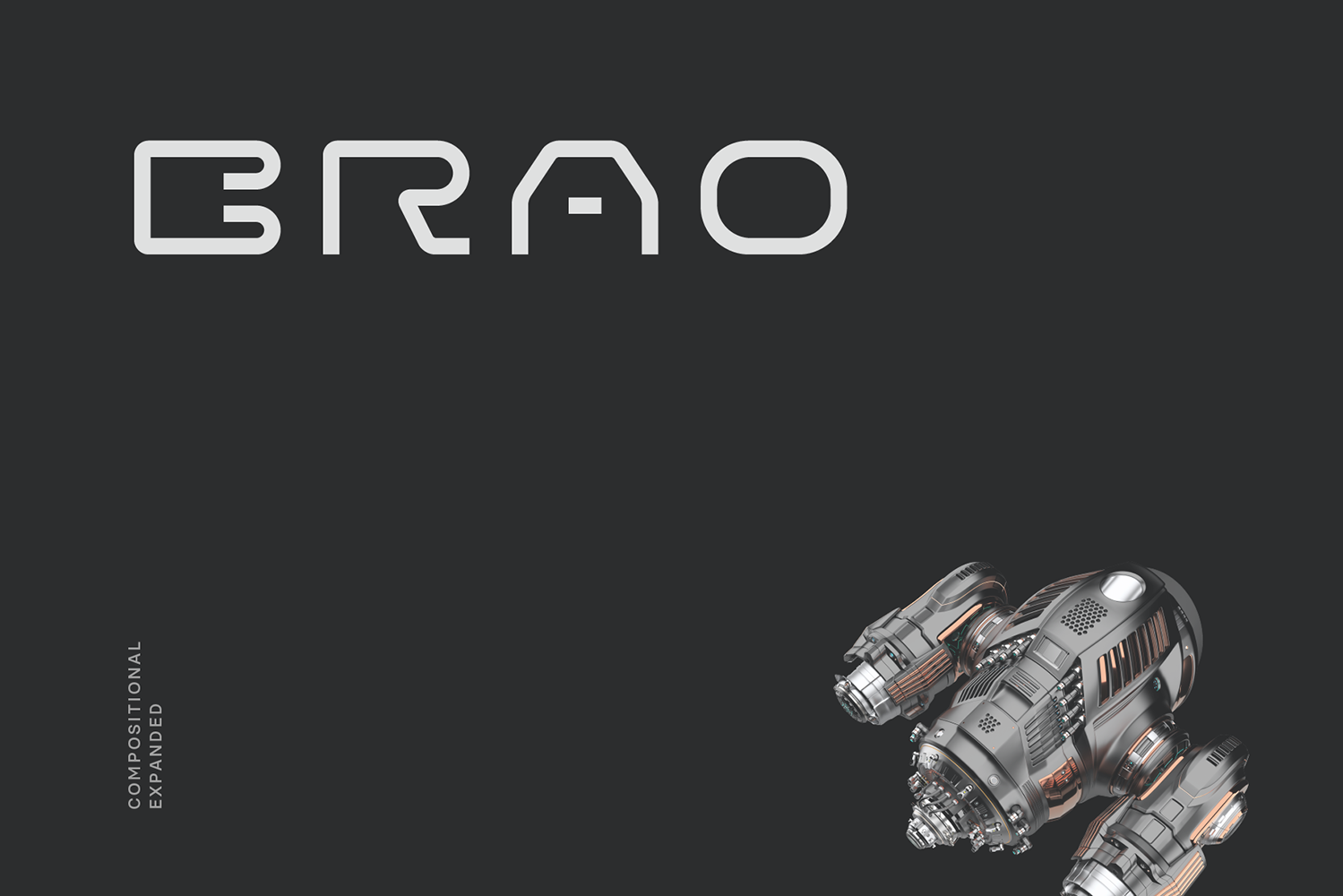
Brao Futuristic Tech Font
Brao is a compositional expanded, delicate display font apt for conceptual prototype, product design, album cover, hud typography and user interface applications.
- All caps with alternative
- 2 weights
- Numbers and punctuations
- Toggle caps lock for alternative glyphs